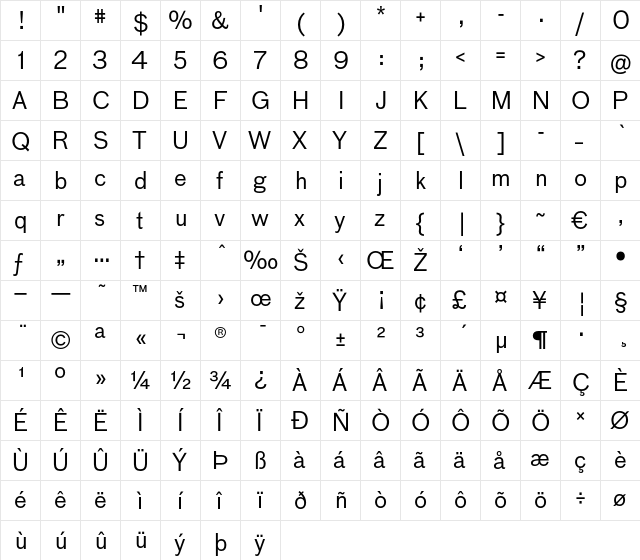
BauLF-Regular Regular
Design Context for BauLF-Regular Typeface
BauLF-Regular takes a measured approach to typography — its balanced proportions and neutral character make it a reliable workhorse for both digital and print work.